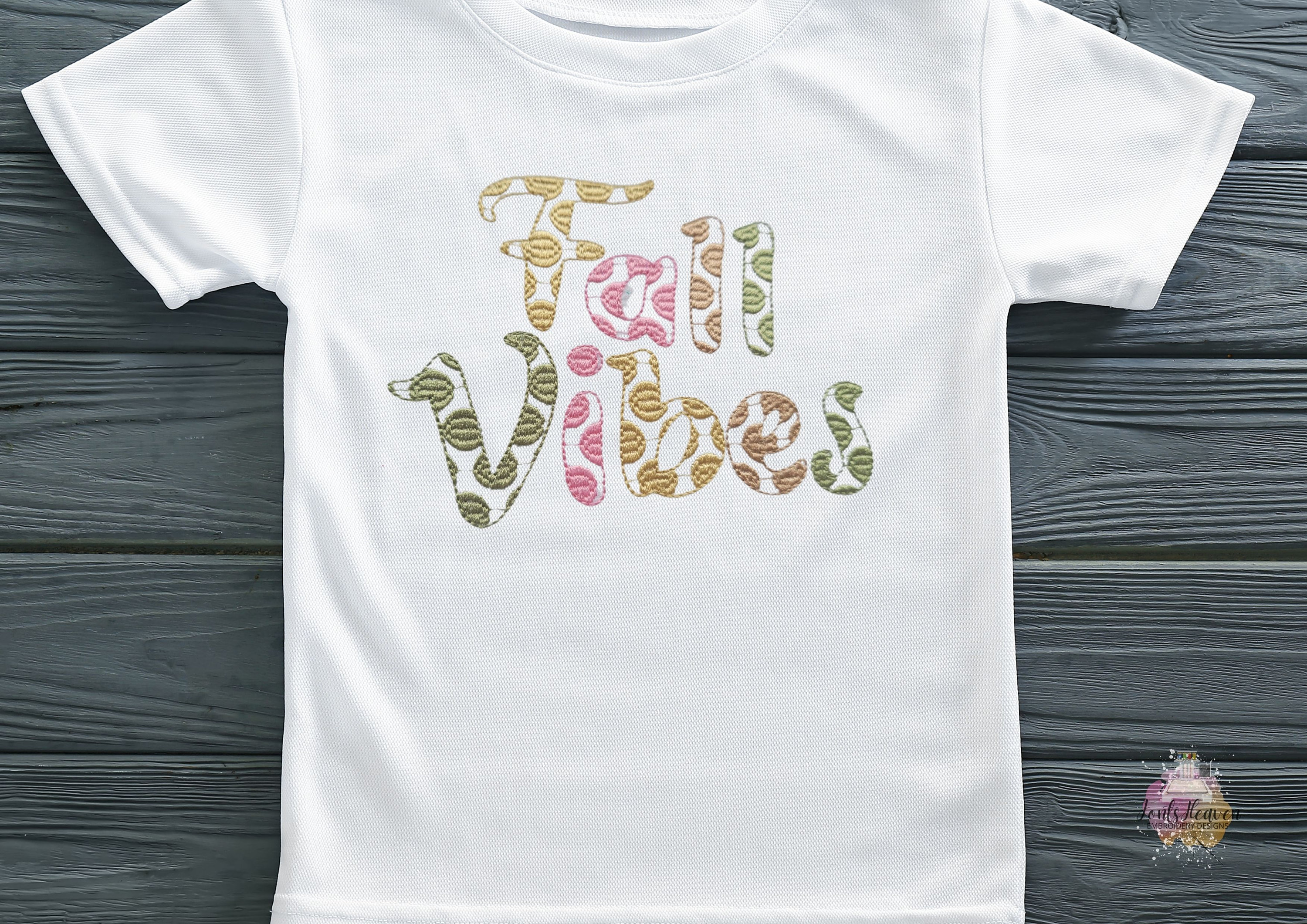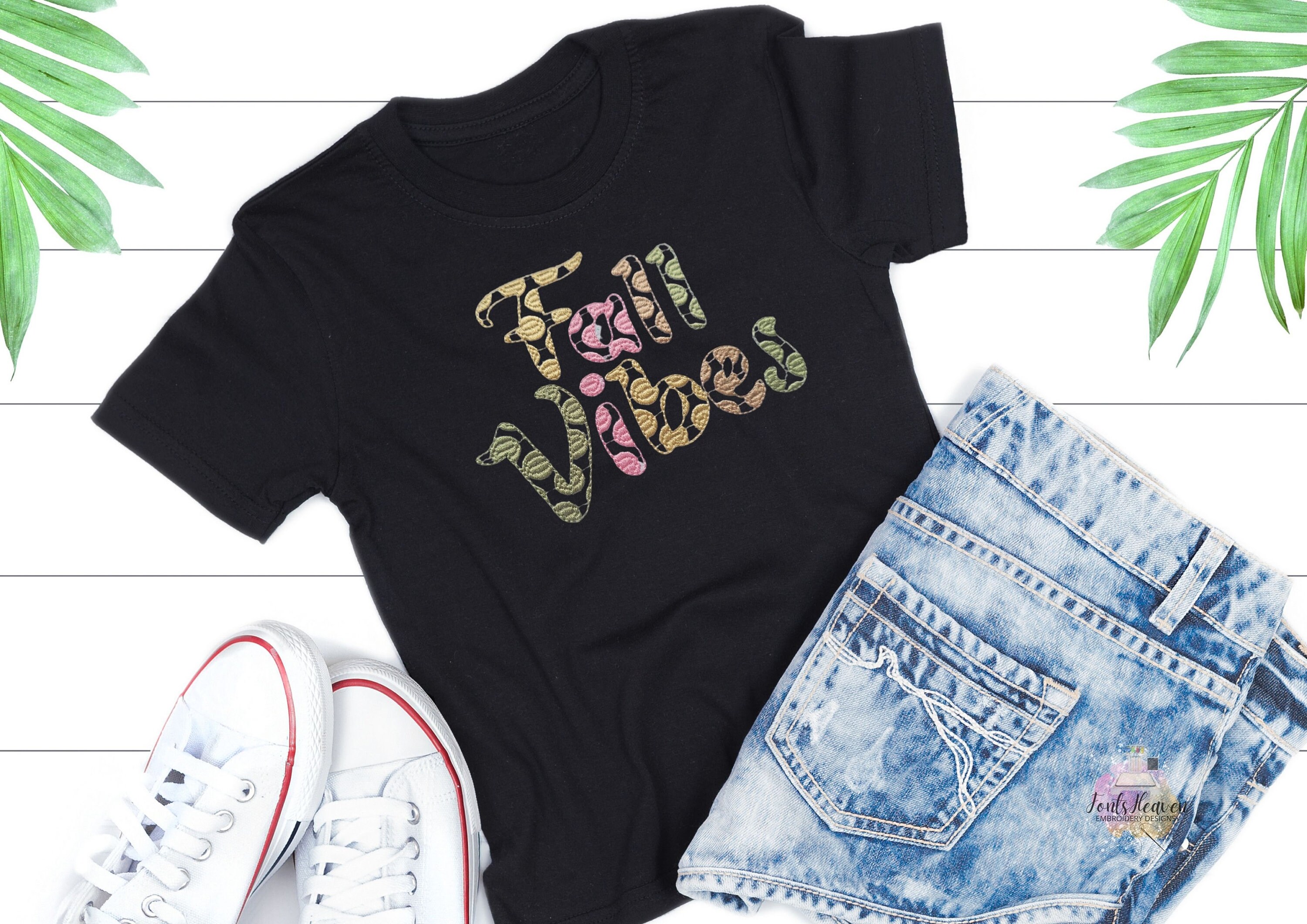
Polka dot patterned Font machine embroidery designs alphabet letters in sizes from 1.4 thru 5.8 inches awesome monogram name dotted letters
Uppercase and lowercase letters, and numbers.
The dots are part of the design.